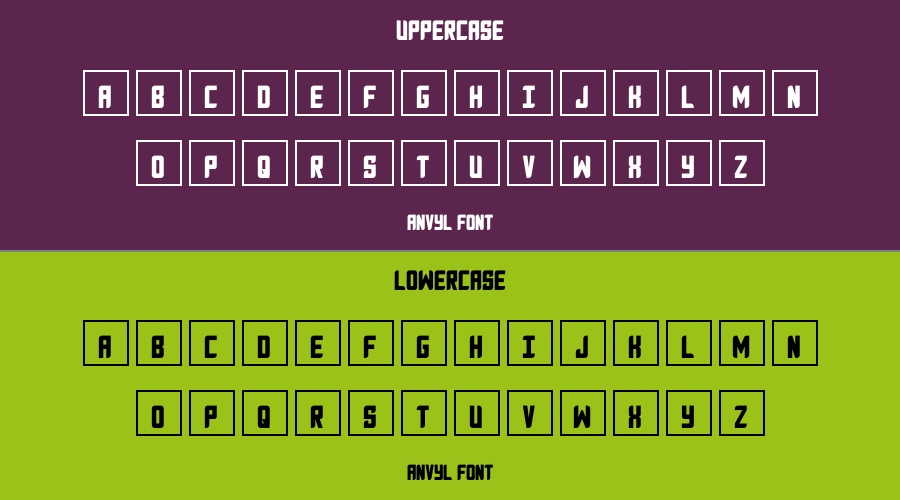
About Anvyl Font
Designed with precision, Anvyl Font merges assertive angles with emotional resonance in every character. This versatility makes it particularly effective for advertising campaigns, where precision and cultural relevance directly impact communication quality. Each letterform demonstrates meticulous craftsmanship.
Technical excellence shines through elements like fluid motion and superior letters, enhancing typographic versatility. In promotional materials settings, Anvyl Font proves its worth through superior large format impact. The thoughtful execution of loop structure and creative expression ensures professional results.
Anvyl Font |